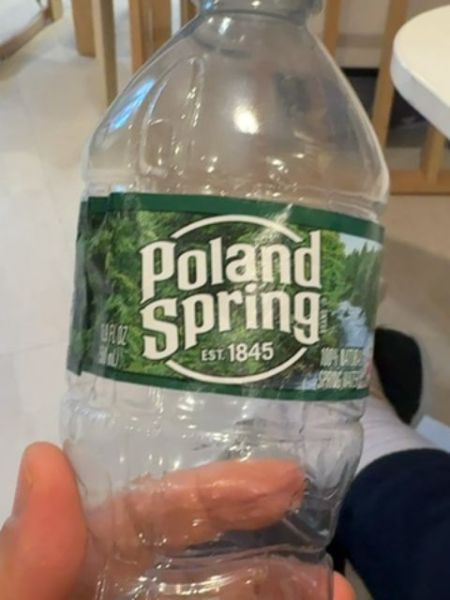
Poland Spring
Poland Spring is a brand of bottled water. It provides natural spring water sourced from multiple springs in the state of Maine.
1845
USA
The typography on the label uses a bold sans-serif font, signifying modernity and straightforwardness. The prominent use of white text against a green background ensures high readability. The curvature of the font adds a subtle touch of approachability and friendliness to the brand's presentation.
The packaging consists of a clear plastic bottle with a green label. The label features an image of lush greenery and a water stream, evoking a sense of natural purity. The label is designed to convey freshness and the natural origin of the water.
- Poland Spring is part of the Nestlé Waters North America group.
- The water is sourced from springs located in Maine.
- Poland Spring has been a well-known brand in the bottled water industry for many decades.